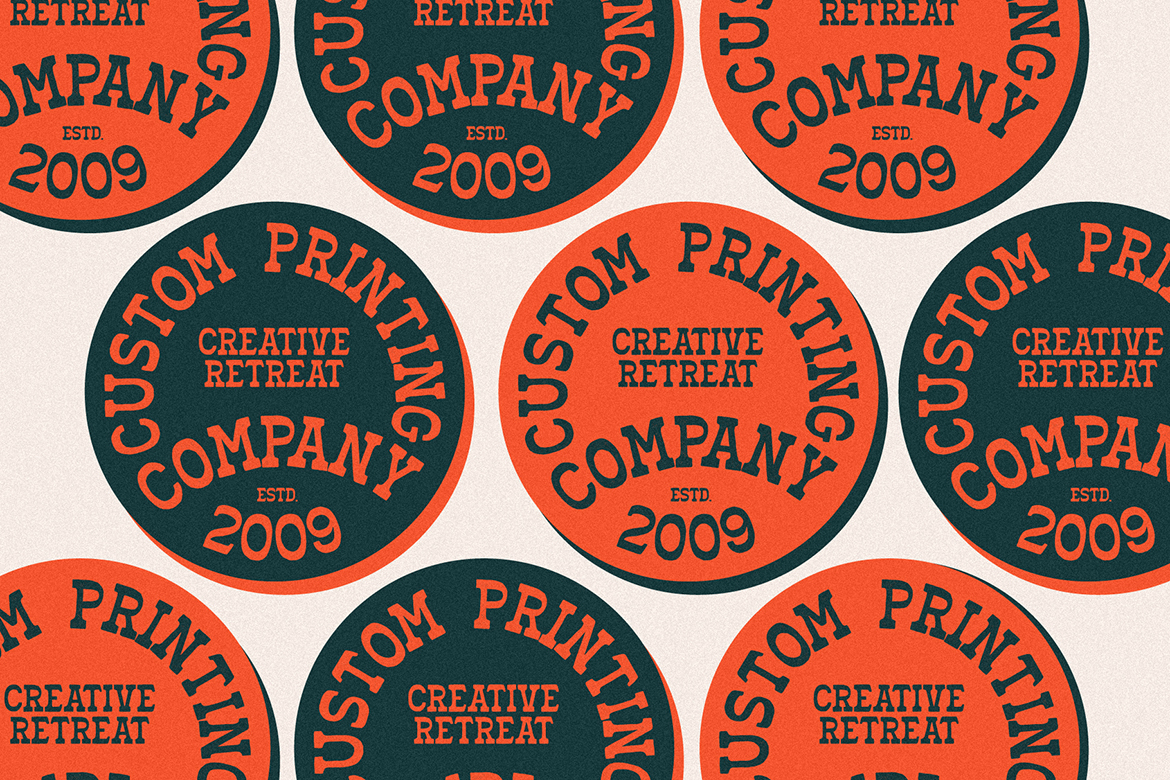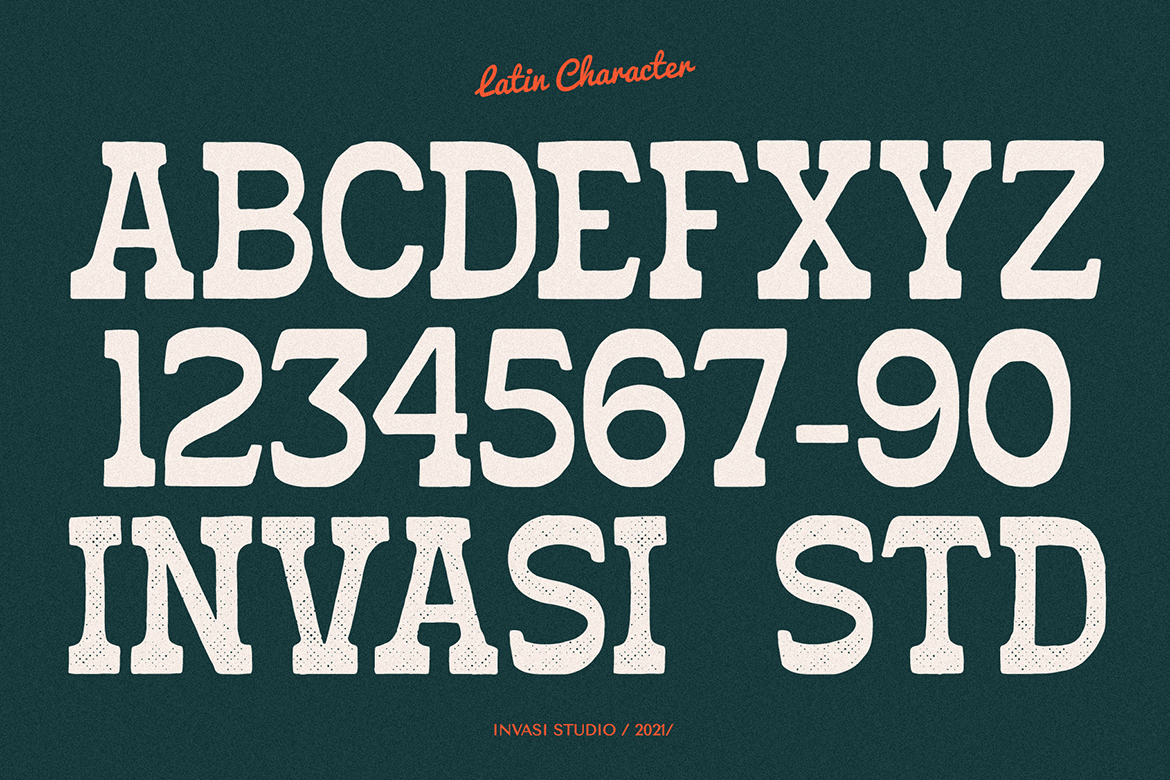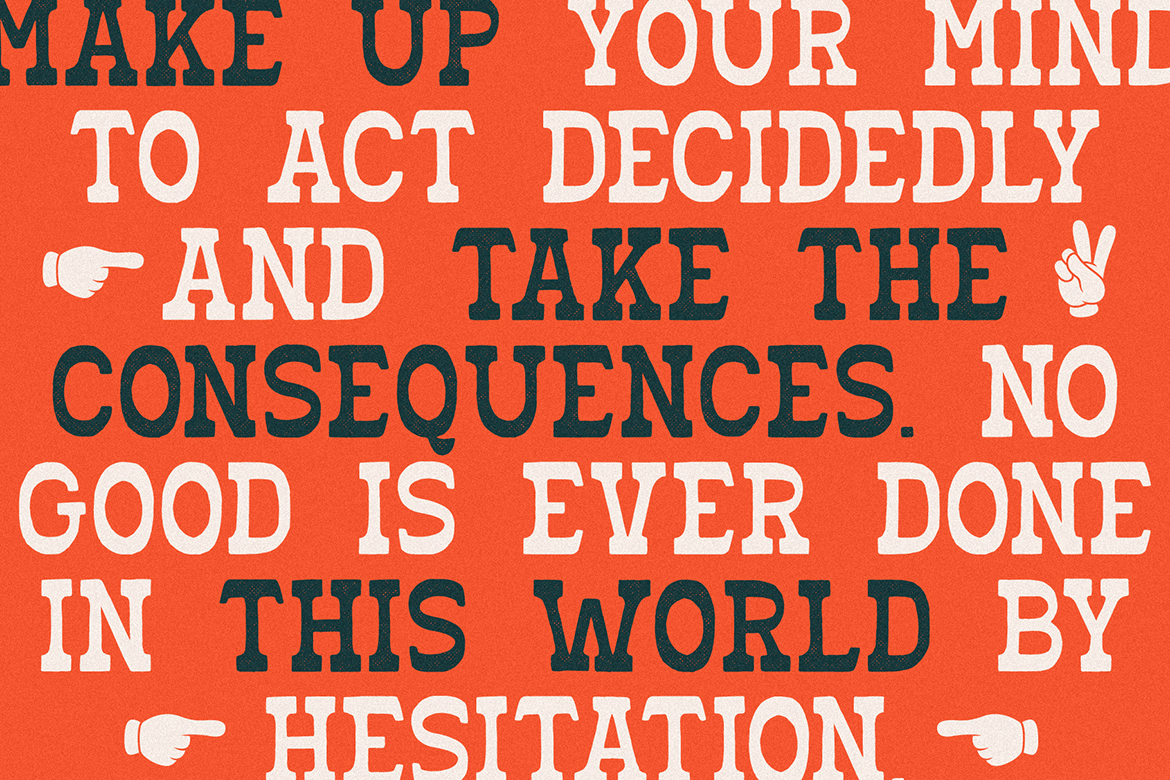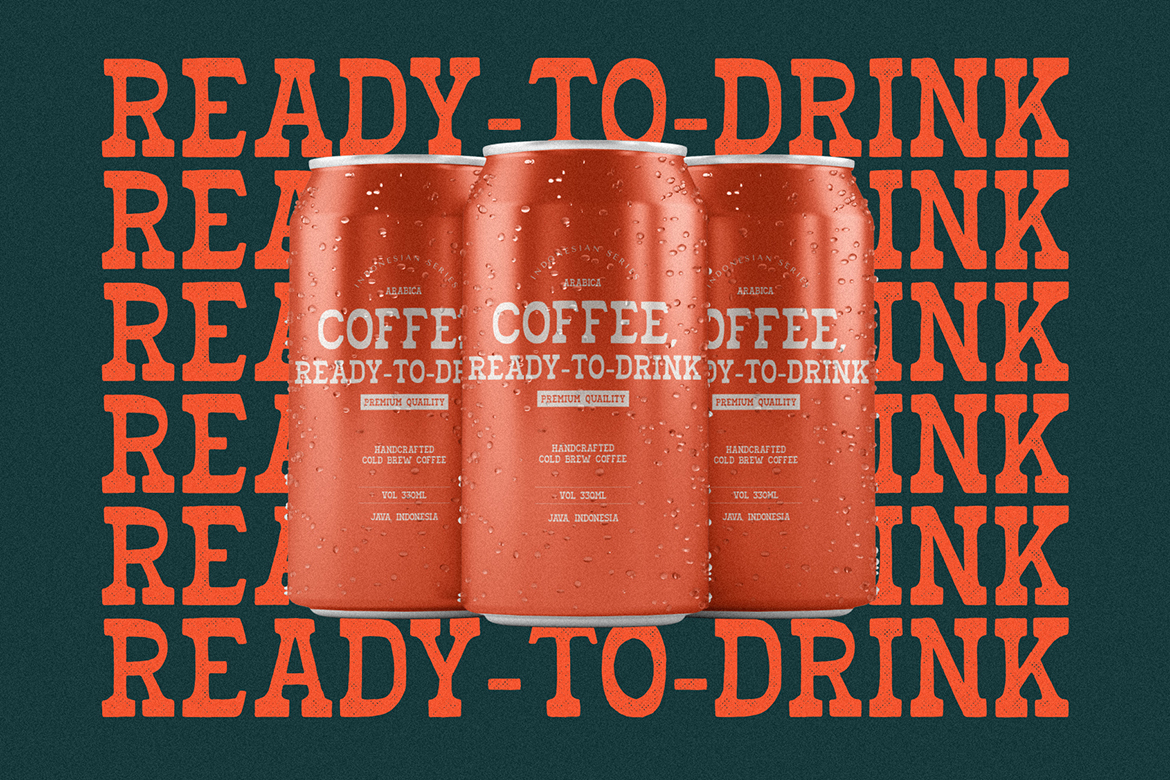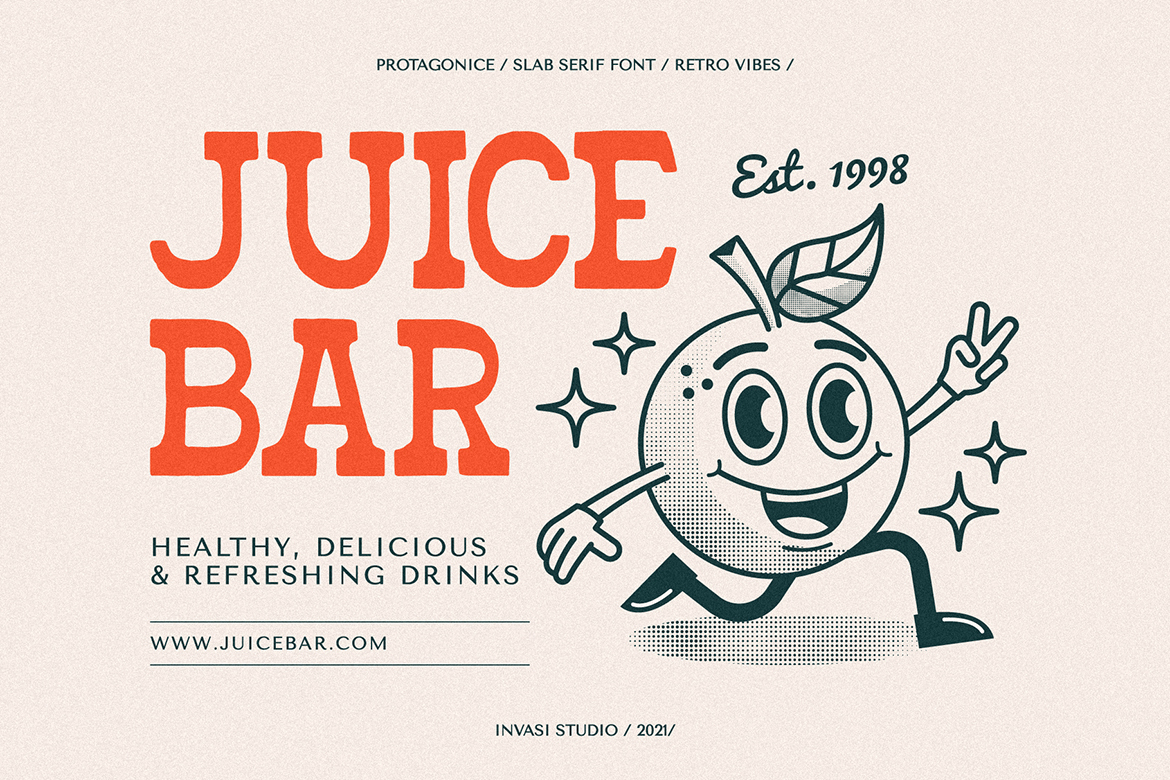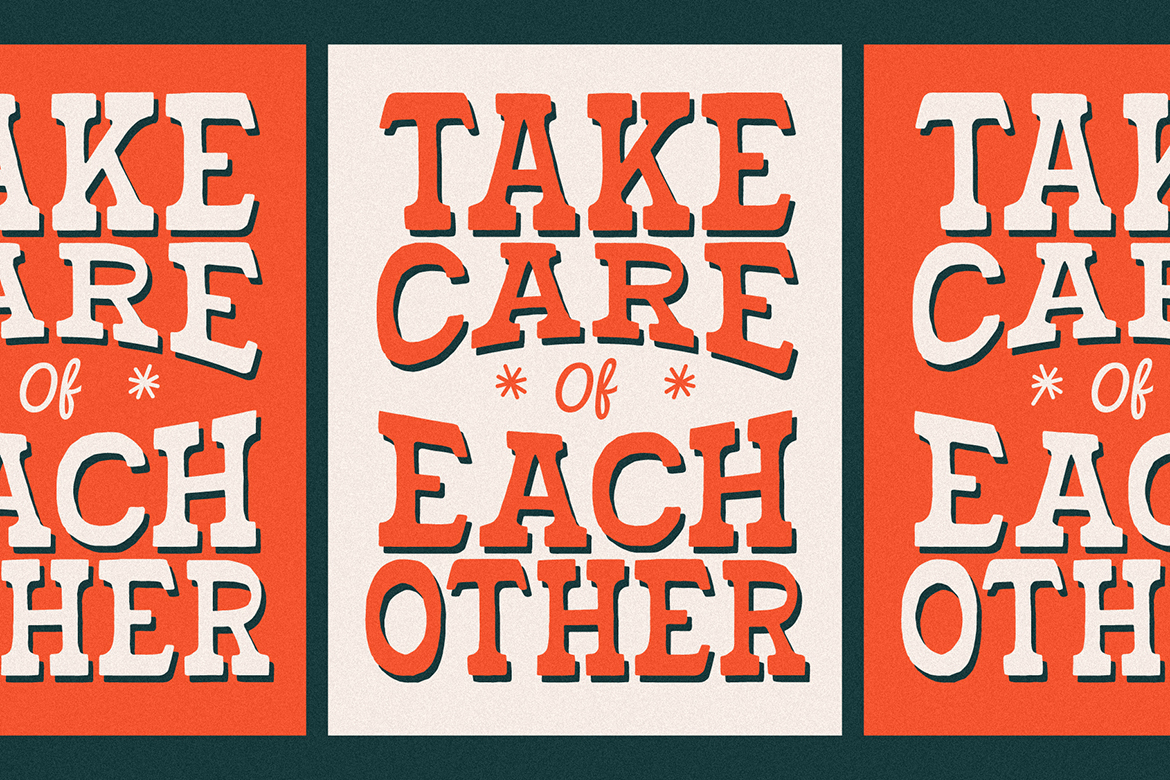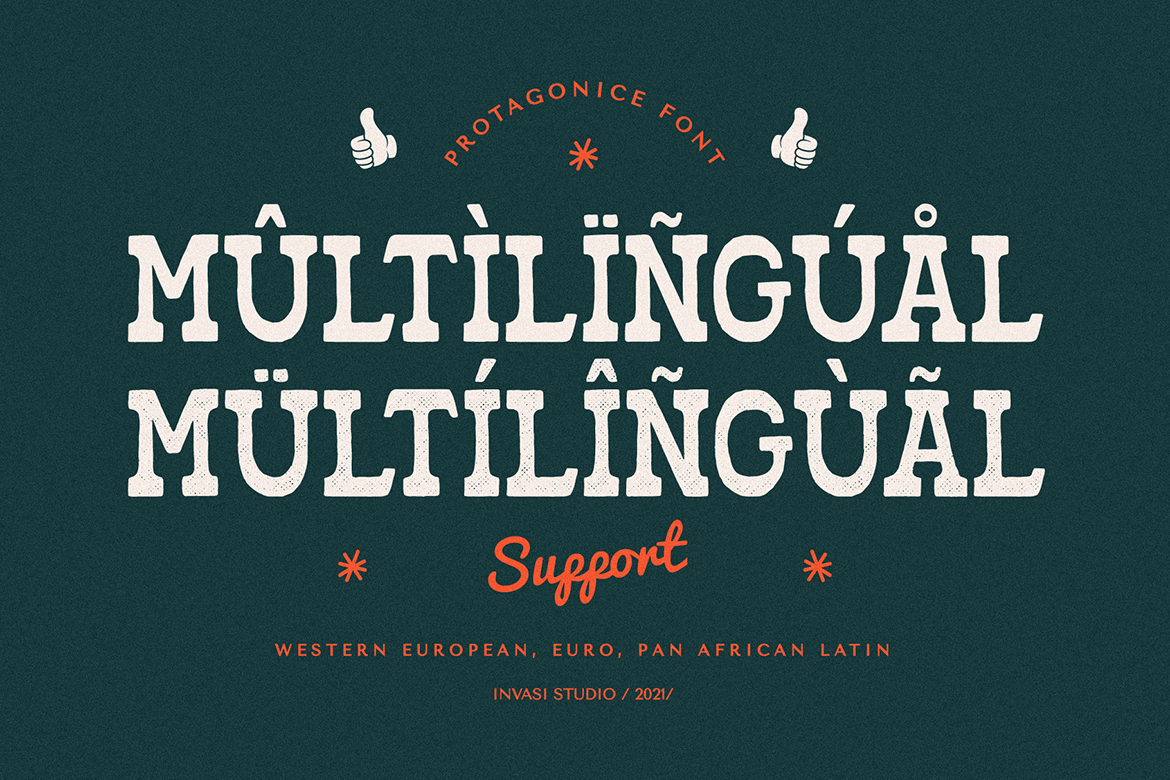
Protagonice - Slab Serif Font
Designed by hand-drawn slab serif style font, Protagonice font comes in two varieties of regular and dotted textures. You can enhance your project with a retro-style using Protagonice Font. Ensuring carefully crafted styles result from the use of this font. Its imperfections keep it casual but allow it to still be legible.
There is an incredibly wide range of uses for it, so give it a try and see how it inspires your creativity! It's ideal for headlines, flyers, posters, greeting cards, product packaging, book covers, printed quotes, logotype, and album covers, among other applications. Because this font is PUA encoded, you can easily access all of the glyphs and swashes!
Features:
- Multilanguage
- Punctuation